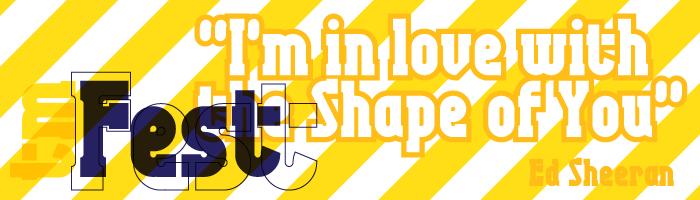
Oh, a great black serif design using the new chunky-line bricks. I like the unexpected 'quirks' (ex. V, g, 4) 10/10
@Aeolien: I tried a more regular pointed V first, but it seemed too out of style with the rest. The quirky V fit better. The quirky 4 is there because I just could not firure out how to not make it standard. Thanks.
Adventures in slab serif.